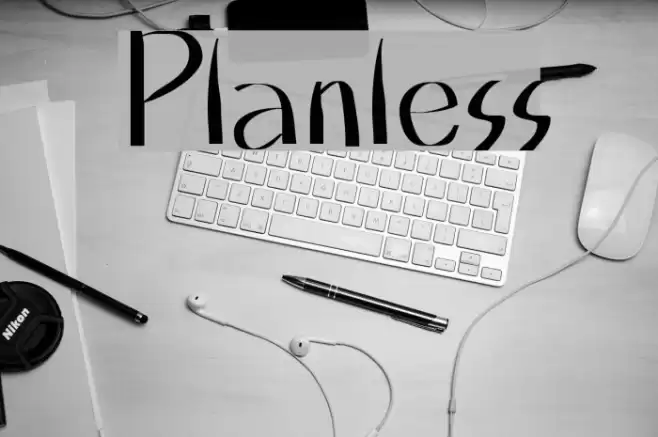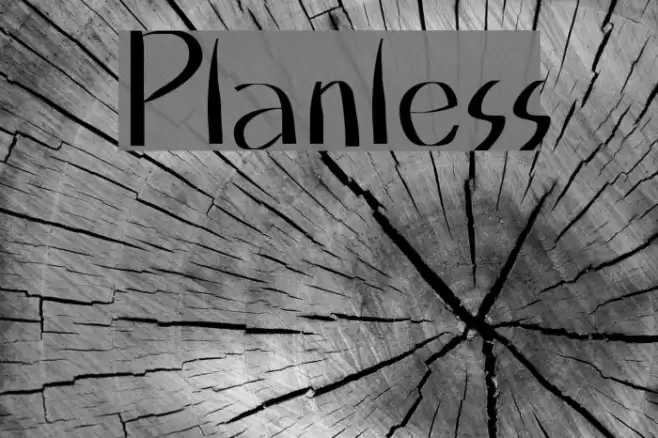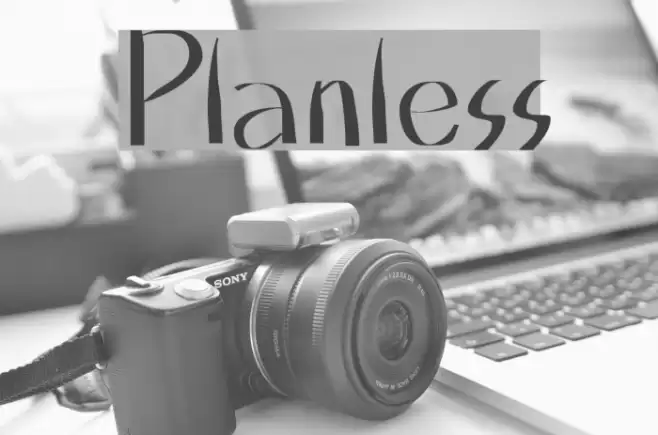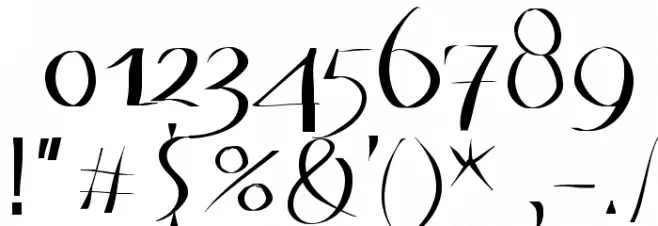
Planless Font
Planless Description
This font features a dynamic and playful design with a hand-drawn aesthetic. The characters exhibit a whimsical and irregular form, with varying stroke widths that create a lively and energetic appearance. The uppercase letters are bold and slightly condensed, while the lowercase letters maintain a consistent flow with a touch of flair. Numbers and special characters follow the same playful style, making the font suitable for creative and informal projects. The overall look is unique and eye-catching, perfect for adding a personal touch to any design.
A playful, hand-drawn font with dynamic and irregular strokes from Uncategorized fonts.
- Proposed Projects: Ideal for children's books, creative posters, casual branding, and playful invitations.